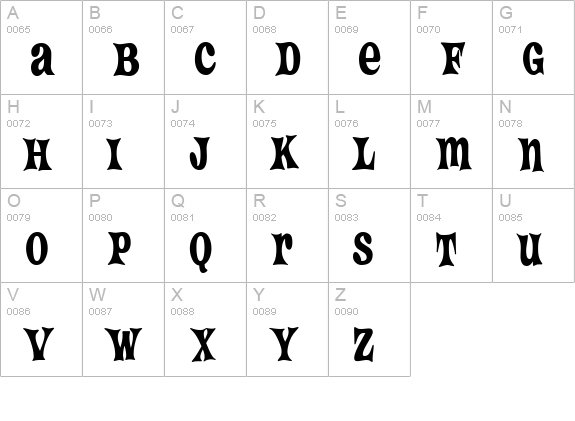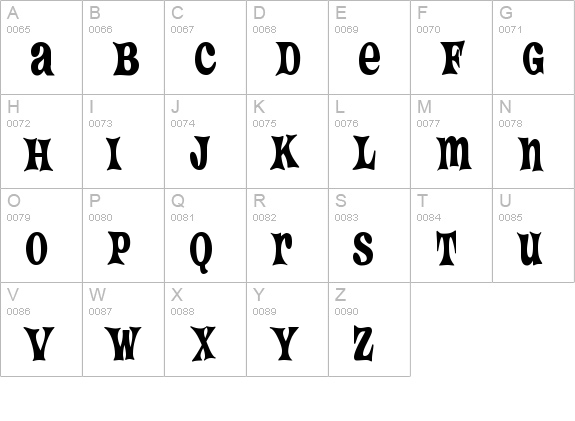
Crazy HaroldCondensed Alt Font Details
Crazy HaroldCondensed Alt font is a quirky and playful typeface that is perfect for adding a touch of fun to your designs. With its unique and eccentric style, this font is sure to grab attention and make a statement. The condensed design adds a modern edge, while the playful details give it a whimsical charm. Best of all, Crazy HaroldCondensed Alt font is completely free to download at FontsMarket.com. Whether you're working on a poster, website, or any other creative project, this font is a great choice for adding a touch of personality. Download it now and let your creativity run wild with Crazy HaroldCondensed Alt font!